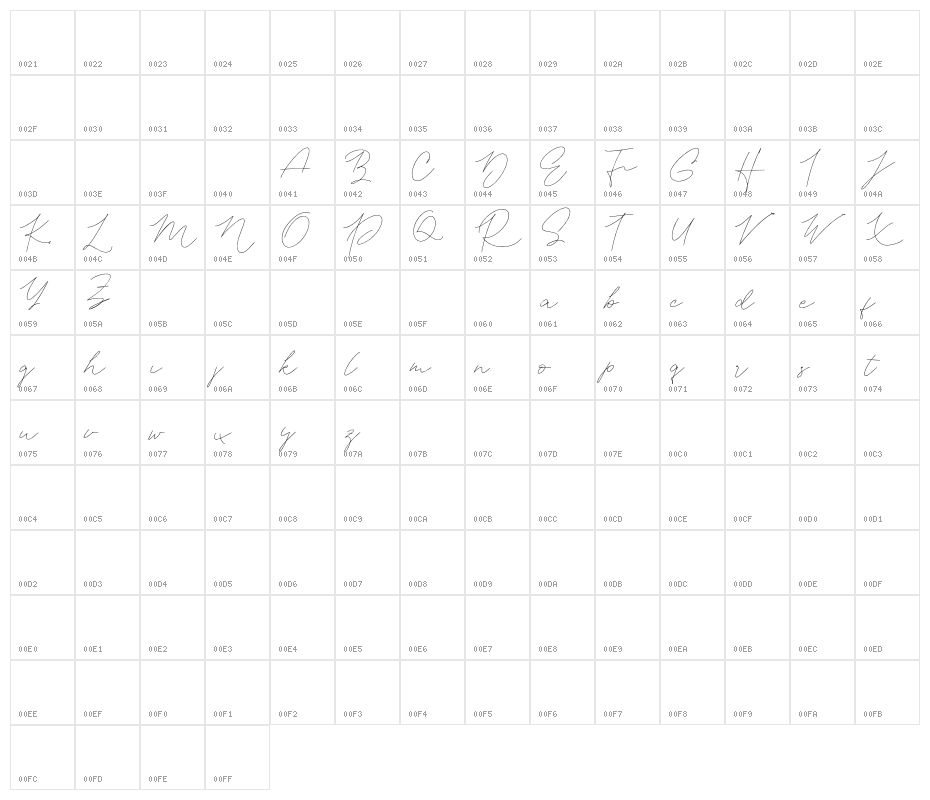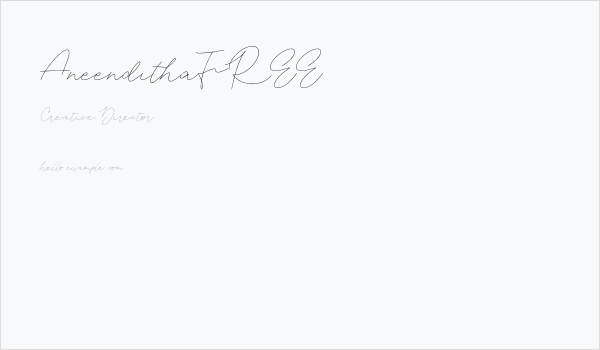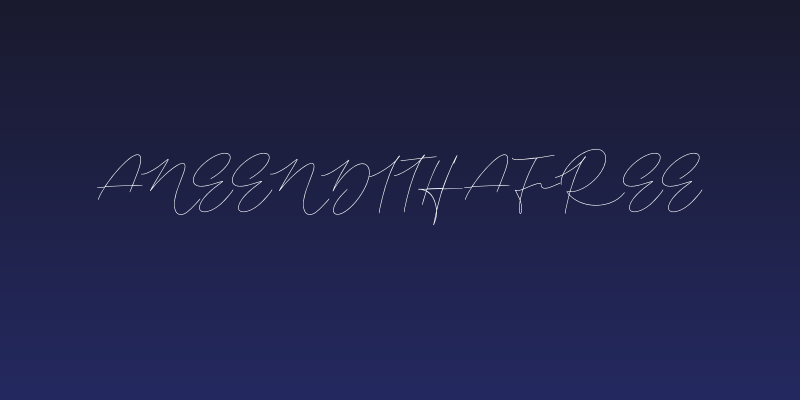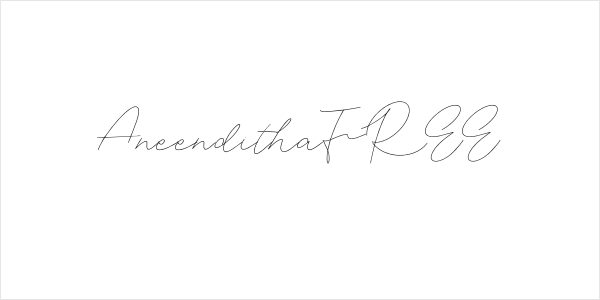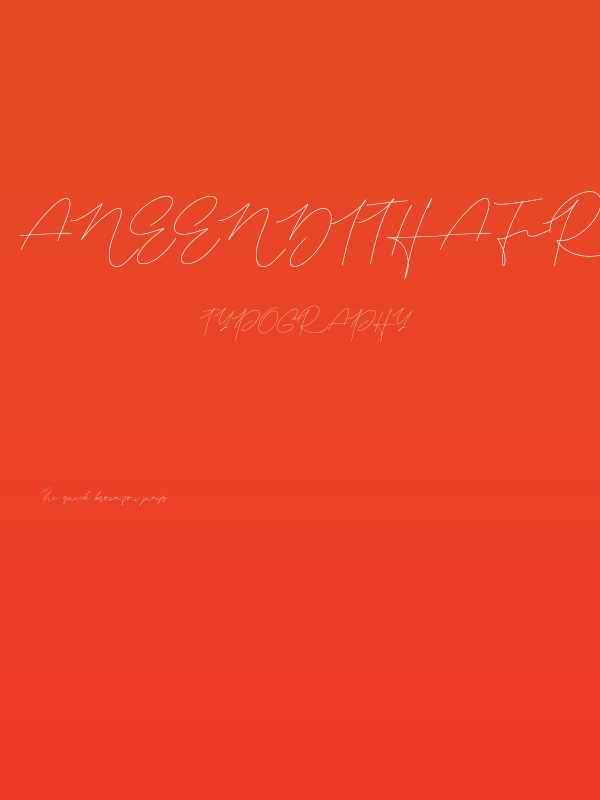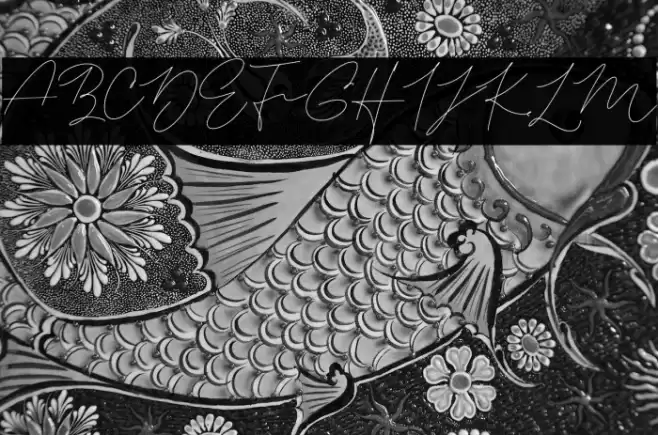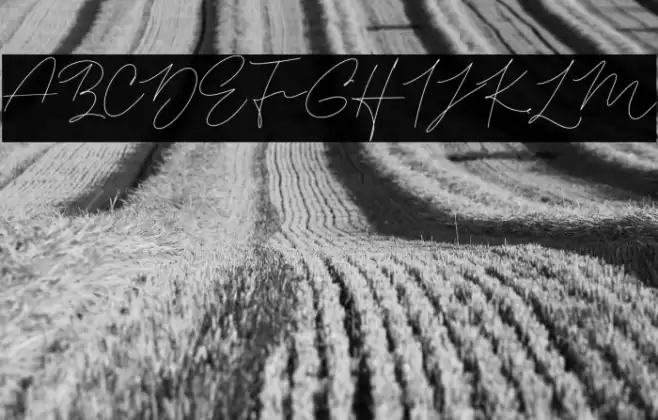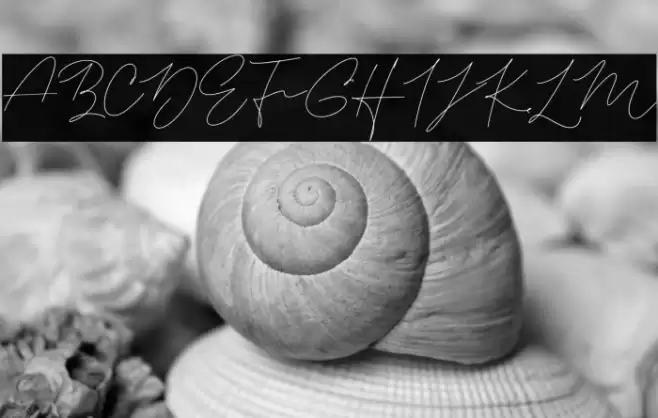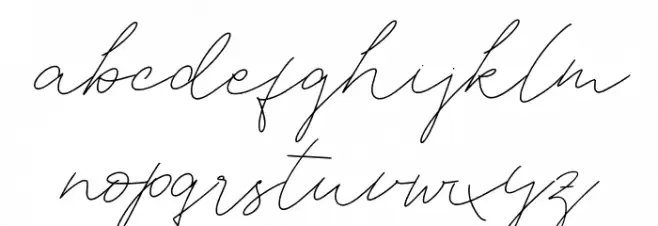
AneendithaFREE Font
AneendithaFREE Description
A delicate, flowing script font with thin, continuous strokes that mimic natural handwriting. The characters are connected, featuring elegant loops and a slight rightward slant, giving it a personal and informal feel.
| Overall Style | Decorative, Elegant, Handwritten |
| Use Case | Logos, Invitations, Personal correspondence, Decorative headings |
| Proposed Projects | Wedding invitations, personal notes, branding for boutiques, greeting cards, signatures. |